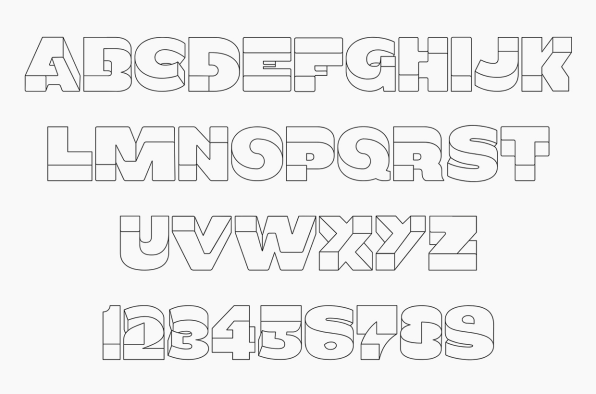
During his lifetime, famed graphic artist M.C. Escher explored the concepts of mathematical infinity and impossible geometry in a series of wood prints, lithographs, and mezzotints. One thing Escher never did, though, was put his Drawing Hands to the task of designing a typeface.
If he did, it might have looked something like Oxymora. Designed by Barcelona-based illustrator and multimedia designer Birgit Palma, it’s a typeface made entirely of impossible geometric shapes. And like Escher’s work, the longer you look at it, the more your mind lurches as you try to wrap your head around what you’re seeing.
It’s a brilliant project. Every typeface is really just as much a collection of geometry as it is a collection of characters. What makes Oxymora different from other typefaces, though, is that the geometric configurations make no sense. Instead, they are optical illusions, an alphanumeric family of blivets, veeblefetzers, and Penrose Triangles.
The Escher-esque feel of the typeface is no coincidence. “A little while ago, I did some work for a client and started to play around with Escher’s impossible shapes,” Palma told Inspiration Hut. “In the end I got so addicted by the system that I made a complete font, based on impossible shapes.”
Like a good Escher drawing, then, a sentence formatted in Oxymora will look fine at first glance, but will cause cognitive dissonance the longer you look at it. In Oxymora’s case, this is accomplished by using a pseudo 3-D perspective to render all of the letters. But when your mind tries to parse the resulting shapes in mental 3-D space, it can’t. One side of a letter might appear to be seen from the top left, while the other half of the letter might be rendered as if from a bottom-right perspective.
In feel if not in appearance, Oxymora seems like a typeface that Tobias Frere-Jones might design after spending too much time playing Monument Valley on his iPhone. Sadly, though, Oxymora is not yet available to install on your computer. Too bad, as setting this up as a practical joke as someone’s system font might be enough to tumble them through the looking glass.